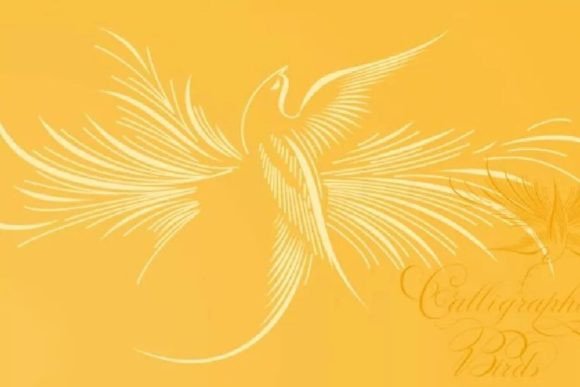
Calligraphic Birds Font: Elevate Your Designs with Elegant Penmanship
Calligraphic penmanship is an art form that embodies the essence of beautiful handwriting. When it comes to creating stunning visual designs, the right font can make all the difference. That’s where the Calligraphic Birds Font comes in – a gorgeous collection of two sets of birds that will take your designs to new heights. In this article, we’ll dive into the world of calligraphic penmanship and explore the unique features of this beautiful font.
The Art of Calligraphic Penmanship
Calligraphic penmanship is a style of handwriting that emphasizes beautiful lettering and artistic flair. It’s an ancient art form that requires skill, patience, and practice. With the right tools and techniques, calligraphers can create breathtaking pieces that are both visually striking and meaningful. The Calligraphic Birds Font captures the essence of this art form, bringing it to life in a digital format.
Introducing the Calligraphic Birds Font
The Calligraphic Birds Font is a unique and stunning collection of two sets of birds, carefully crafted to bring a touch of elegance to your designs. Each bird is meticulously illustrated with beautiful calligraphic penmanship, showcasing intricate details and flowing lines. The font is perfect for designers, crafters, and anyone looking to add a personal touch to their projects.
Key Features of the Calligraphic Birds Font
- Two sets of beautiful birds: The font includes two distinct sets of birds, each with its own unique characteristics and design elements.
- Calligraphic penmanship: The font features beautiful calligraphic penmanship, with intricate details and flowing lines that evoke a sense of elegance and sophistication.
- Digital format: The font is available in a digital format, making it easy to use and incorporate into your designs.
- Perfect for designers and crafters: The font is ideal for designers, crafters, and anyone looking to add a personal touch to their projects.
Uses for the Calligraphic Birds Font
The Calligraphic Birds Font is versatile and can be used in a variety of projects, including:
- Stationery and invitations: Add a touch of elegance to your stationery and invitations with the Calligraphic Birds Font.
- Graphic design projects: Use the font to create stunning graphic design projects, such as brochures, flyers, and posters.
- Crafting and scrapbooking: The font is perfect for crafters and scrapbookers looking to add a personal touch to their projects.
- Digital art and illustrations: Use the font to create beautiful digital art and illustrations that showcase your creativity.
Tips for Using the Calligraphic Birds Font
To get the most out of the Calligraphic Birds Font, here are some tips to keep in mind:
- Experiment with different colors and textures: Add depth and interest to your designs by experimenting with different colors and textures.
- Mix and match with other fonts: Combine the Calligraphic Birds Font with other fonts to create unique and visually striking designs.
- Pay attention to typography: Make sure to pay attention to typography and use the font in a way that is clear and easy to read.
The Calligraphic Birds Font is a beautiful and unique collection of two sets of birds that will elevate your designs to new heights. With its stunning calligraphic penmanship and intricate details, this font is perfect for designers, crafters, and anyone looking to add a personal touch to their projects. Whether you’re creating stationery, graphic design projects, or digital art, the Calligraphic Birds Font is sure to inspire and delight.